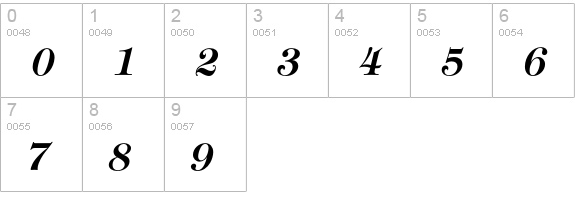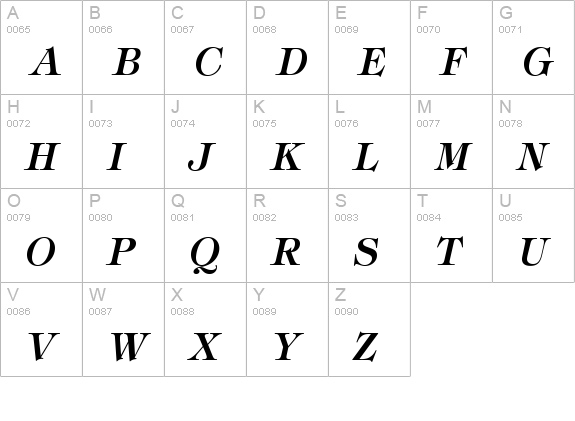
TiffanyEF-DemiItalic is a stunning and elegant font that exudes sophistication and grace. Its delicate curves and slanted design create a unique and captivating visual appeal. This font is ideal for adding a touch of class to any project, whether it's a wedding invitation, a logo, or a professional presentation. What makes TiffanyEF-DemiItalic even more appealing is that it is completely free. Yes, you read that right! This exquisite font is freely available to download at FontsMarket.com. Now, you can enhance your designs without any cost or restrictions. With its versatility and timeless beauty, TiffanyEF-DemiItalic is a font that will effortlessly elevate your creative endeavors. Its flowing strokes and stylish serifs make it a perfect choice for those seeking a touch of elegance and sophistication. Imagine the possibilities with TiffanyEF-DemiItalic! Let your imagination run wild as you incorporate this font into your projects. Whether you're designing a magazine layout, creating a website, or crafting personalized stationery, TiffanyEF-DemiItalic will bring a touch of luxury and refinement to your work. So, don't miss out on this incredible opportunity to enhance your designs with TiffanyEF-DemiItalic. Head over to FontsMarket.com and download this exquisite font for free. And remember, with TiffanyEF-DemiItalic, you have the power to create beautiful and professional designs that will leave a lasting impression.